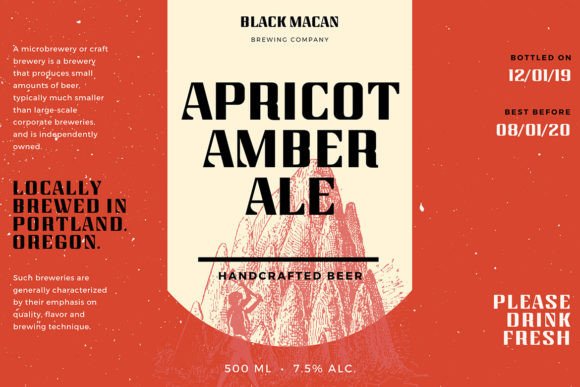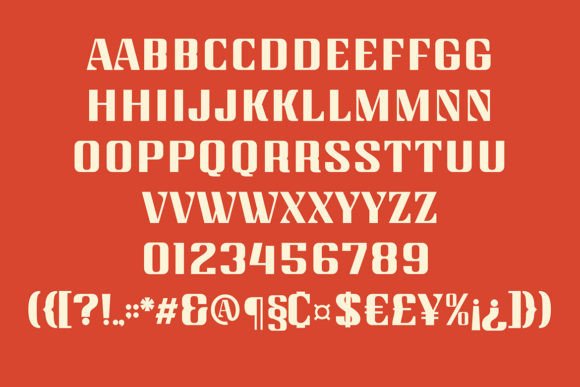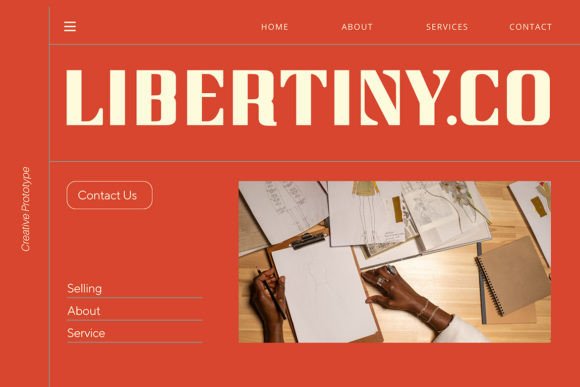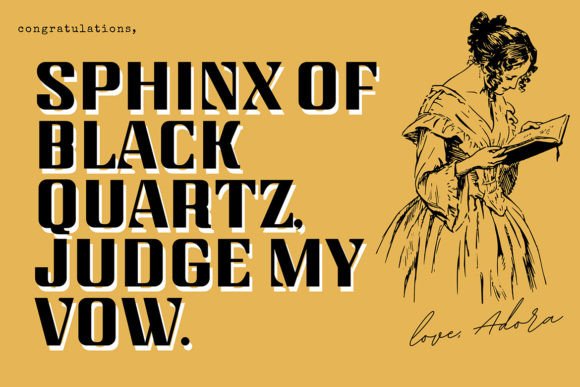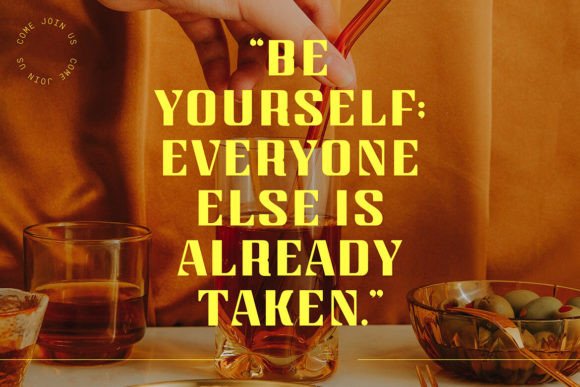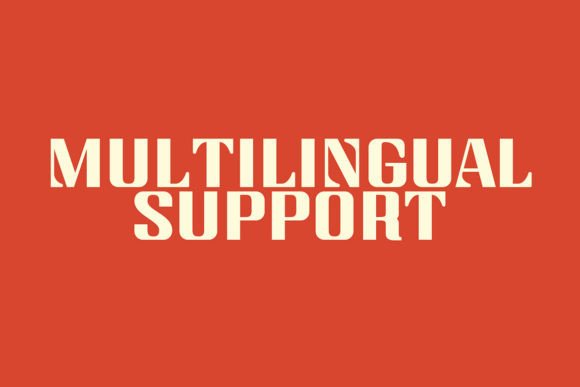
Introduction to Nortone Font
Have you ever found yourself stuck in front of a blank canvas, staring at a sea of possibilities, unsure of where to begin? For designers, this moment is all too familiar. But what if we told you there’s a secret ingredient that can elevate your creative project from ordinary to extraordinary? Enter the Nortone Font, a bold and assertive serif font that’s about to become your new best friend.
As a valuable addition to any design library, the Nortone Font is a high-quality resource that’s sure to impress. With its free download and transparent background, you can seamlessly integrate it into your next creative project, whether it’s a magazine layout, a branding campaign, or even a simple social media graphic. And the best part? The Nortone Font is a game-changer for designers, offering a unique voice that sets your work apart from the crowd.
Key Features of Nortone Font
- Unique characteristics include a clean and minimalist design, with subtle texture and intricate details.
- Perfect for use in logos, branding materials, and digital art projects, due to its versatility and high-quality design.
- Comes with a comprehensive character set, including uppercase and lowercase letters, numbers, and punctuation marks.
Honest Review: Nortone Font
I recently came across the Nortone Font, and I have to say, it’s been a great addition to my design resource library. With its high quality and versatility, it’s a fantastic choice for any creative project.
- ✨ Beautiful, modern design that’s perfect for minimalist and sleek projects
- ✨ High quality, clear and crisp fonts that are easy to read
- ✨ Transparent background, making it easy to overlay on any design
One thing to note is that the Nortone Font is a bit limited in its font family options, ⚠️ which may be a drawback for designers who need a wide range of styles. However, for most projects, the available fonts should be sufficient.
Overall, I’m impressed with the Nortone Font. It’s a great choice for designers who want a high-quality, modern font that’s easy to use and customize. With its transparent background and free download, it’s a valuable addition to any design library.
The Nortone Font is commonly used in creative projects such as logos, brochures, and business cards. It’s also used in presentations, documents, and social media graphics. The transparent background of the font makes it perfect for creating a clean and minimalist look.
Yes, Nortone Font supports transparent backgrounds, making it ideal for use in creative projects that require a high level of design flexibility. This feature allows you to easily place the font over images or other design elements without worrying about background conflicts.